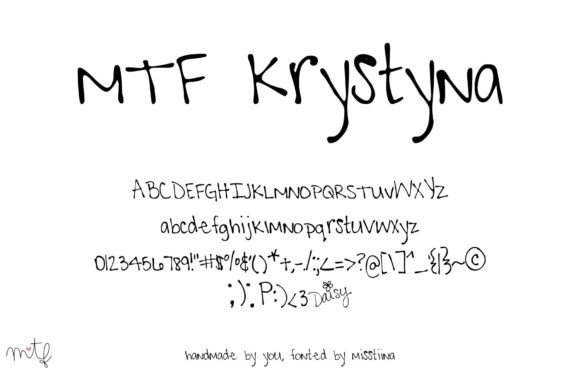
Krystyna Font
About Krystyna Font
Krystyna is not just a font; it’s a gorgeous handwritten script font meticulously crafted to strike a perfect balance between professional aesthetics and natural shapes. Impeccable and easy to read, this typeface is a versatile choice that suits a wide range of creative projects.
The beauty of Krystyna lies in its impeccable design. The characters exhibit a harmonious blend of professionalism and a handwritten touch, making it a font that seamlessly adapts to various design contexts. Whether you’re working on business documents, creative projects, or personal endeavors, Krystyna elevates your text with style and readability.
Versatility is one of Krystyna’s standout features. Its design makes it suitable for almost anything you have in mind. From business documents to creative designs, Krystyna adds a touch of sophistication without sacrificing approachability. It’s a font that enhances your text while maintaining a natural and inviting feel.
If you’re seeking a font that exudes professionalism without feeling overly formal, Krystyna is an excellent choice. Its easy readability ensures that your message comes across effortlessly, whether you’re creating business materials, presentations, or any other documents that require a polished appearance.
Krystyna doesn’t just stop at being a font; it’s a design tool that brings a perfect blend of aesthetics to your projects. Whether you’re a professional designer, a business owner, or someone working on personal creative endeavors, Krystyna stands ready to enhance your text with its gorgeous and balanced design.
In the world of fonts, Krystyna stands out as a versatile and beautiful option for those who appreciate the art of balancing professionalism and natural shapes. It’s not just about letters; it’s about creating a visual experience that captivates and communicates effectively. So, whether you’re creating business materials or working on a creative project, let Krystyna be your go-to font for achieving a perfect balance of elegance and natural charm.